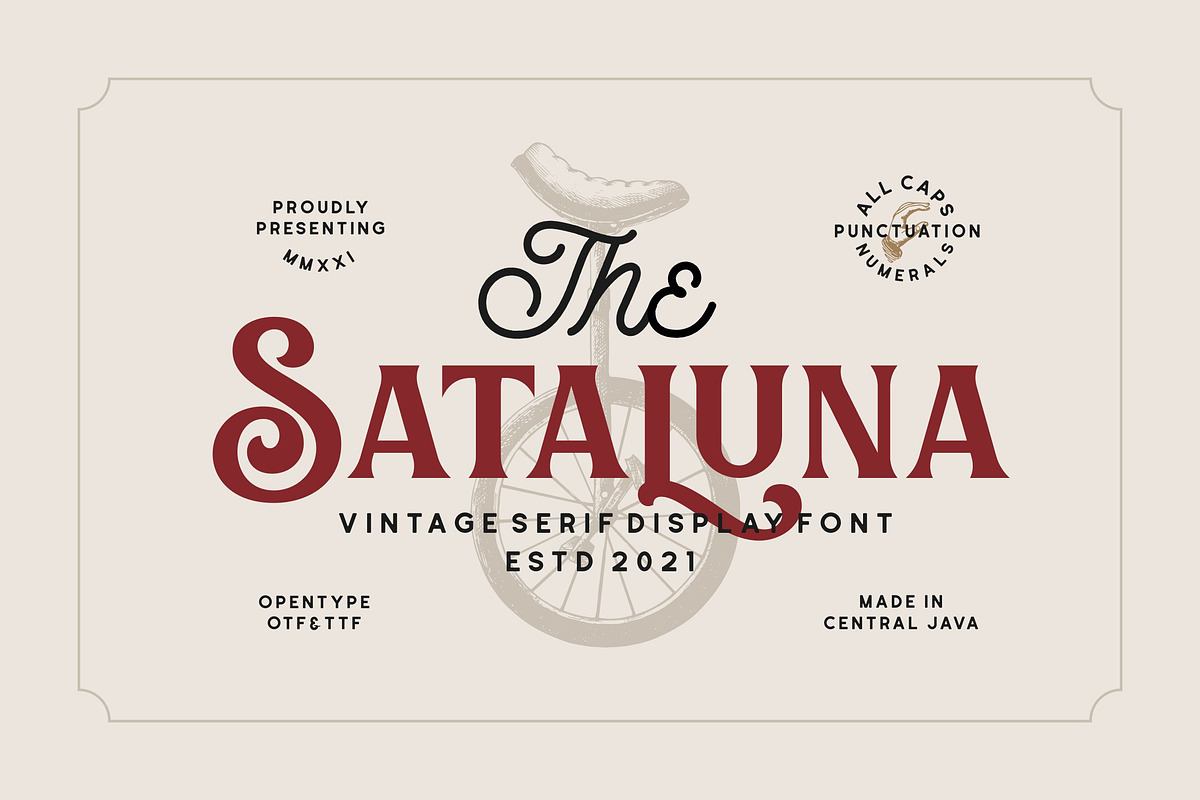
Sataluna is a bold, vintage-styled display font designed by Ovoz Type Designer. It features a robust character set of 225 glyphs, including uppercase and lowercase letters, numerals, punctuation, and multilingual support. This versatility makes it suitable for a wide range of design projects such as T-shirt designs, crafts, posters, illustrations, books, packaging, logos, mugs, games, web design, and wall art.
• Design Style: Bold and vintage, offering a classic aesthetic.
• Character Set: Includes 225 glyphs with multilingual support.
Incorporating Sataluna into your design projects can add a bold and vintage touch, enhancing their visual appeal with its classic aesthetic.